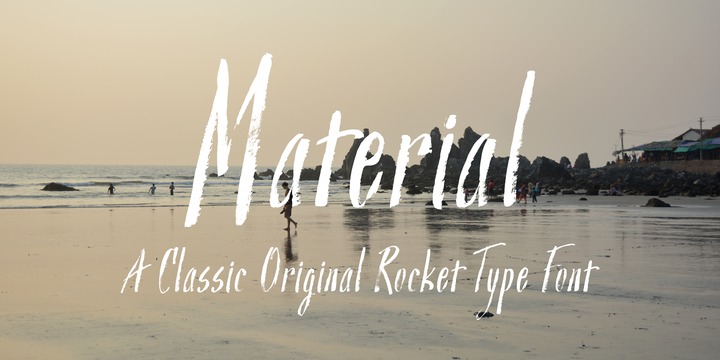
Journey into the realm of artistic expression with Material Regular Font, a captivating script typeface that's guaranteed to unleash your creativity. A brainchild of Good Gravy Type, Material is a symphony of rebellion, inviting you to push boundaries and embrace your individuality.
Imagine the allure of a paintbrush gliding across the canvas, leaving a trail of raw emotion. Material embodies this untamed spirit, fusing the grungy aesthetics of the 80s with the raw energy of a rebellious soul. It's as if each letter is a brushstroke, conveying a powerful message that demands attention.
As wild as it is, Material isn't afraid to embrace its sophisticated side. With a touch of elegance, this font dances between the edgy and the refined, creating a visual masterpiece that captivates and inspires. It's a virtuoso performance that pays homage to the artistic greats while injecting a refreshing dose of contemporary flair.
The Material Regular Font is a chameleon that adapts seamlessly to diverse creative terrains. Whether you're designing billboards that demand attention, turning ordinary t-shirts into wearable works of art, or crafting captivating video productions, Material rises to the occasion. Its versatility knows no bounds, urging you to explore new realms of visual storytelling.
With Material, you're not just downloading a font; you're embarking on a creative adventure. Its smudgy textures, bold strokes, and audacious spirit are an open invitation to make a statement. Its ability to evoke emotions and spark conversations makes it an invaluable asset for designers who dare to be different.
So, if you're ready to inject some "edge" into your designs, if you yearn for a font that's as authentic as it is captivating, then Material Regular Font is your muse. Let it unleash your creativity and watch as your designs transform into unforgettable expressions of self.